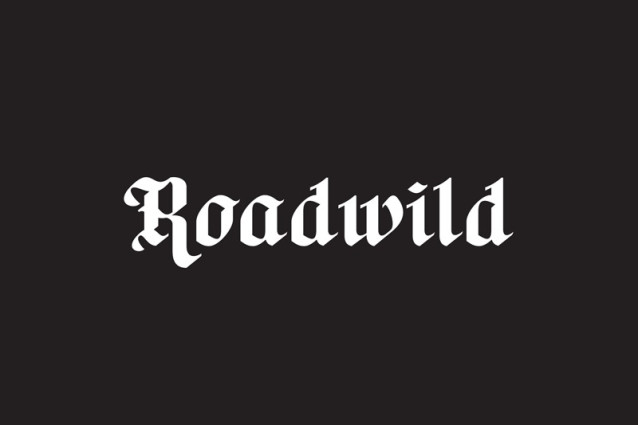
Road Wild Font
Road Wild Font is a bold Gothic-style font designed by Yoga Perdana. Featuring strong letterforms and a powerful visual presence, this typeface is ideal for headlines, sports branding, team logos, posters, and other attention-grabbing designs. Its sharp details and dynamic character create a striking and energetic look, making it a great choice for projects that require strength, impact, and a competitive spirit.